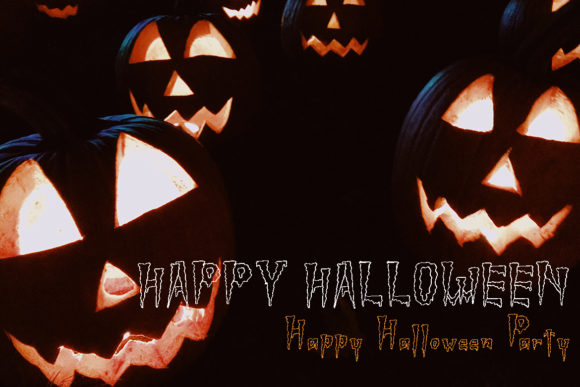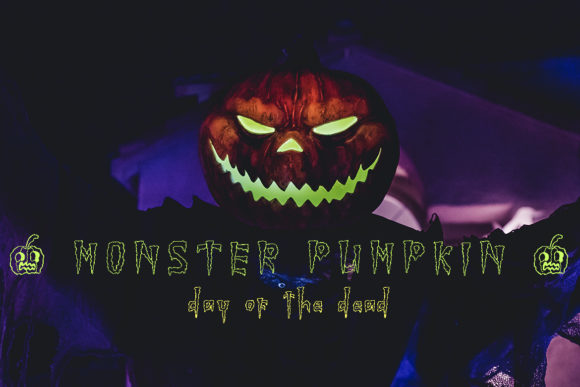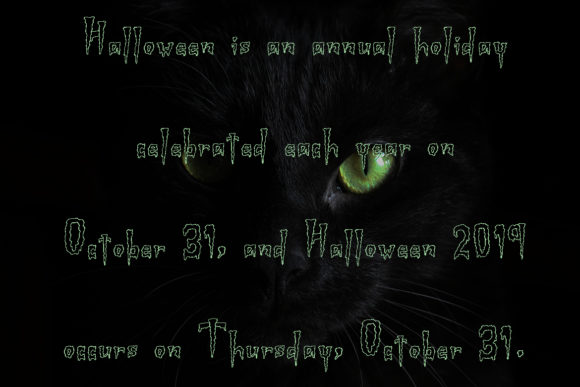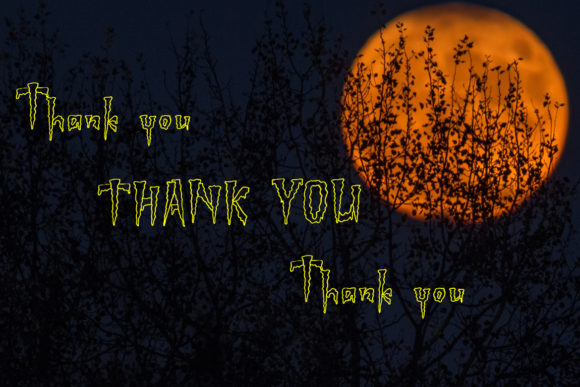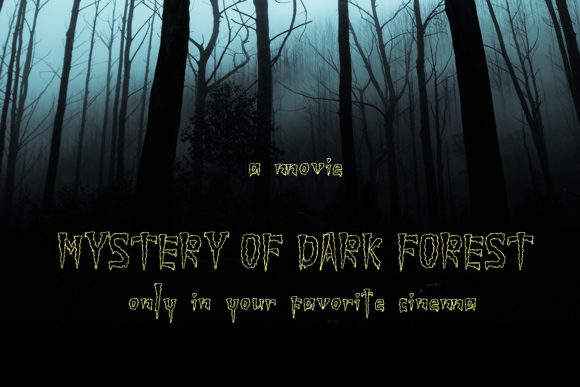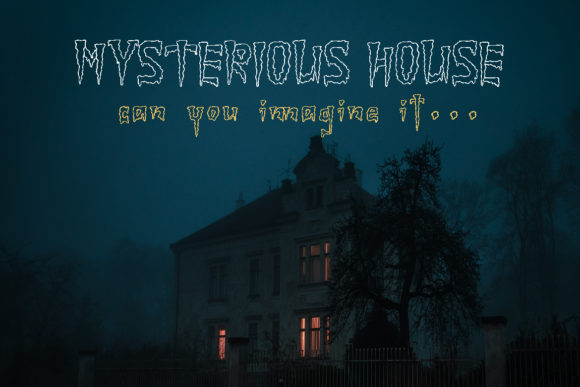
Introduction to Nightimare Pumpkin Font Font
Fonts play a crucial role in design, and the Nightimare Pumpkin Font font is a typeface that brings both character and versatility to any project. Whether you’re working on a branding project, a website, or a print design, the Nightimare Pumpkin Font font offers a unique style that can elevate your work.
Inspired by all things Halloween, Nightimare Pumpkin is a truly scary and rough decorative font thatβs perfect for any Horror-themed design.
Inspired by all things Halloween, Nightimare Pumpkin is a truly scary and rough decorative font thatβs perfect for any Horror-themed design!
Key Features of Nightimare Pumpkin Font Font
Why Choose Nightimare Pumpkin Font Font?
The Nightimare Pumpkin Font font is more than just a typeface β it’s a design tool that helps you communicate your message with style and clarity. Its unique character set and versatile design make it suitable for a wide range of applications, from elegant invitations to bold headlines.
With its carefully crafted letterforms and balanced proportions, the Nightimare Pumpkin Font font ensures readability and visual appeal across all mediums.
What makes Nightimare Pumpkin Font font special?
The Nightimare Pumpkin Font font stands out with its unique design, exceptional readability, and versatility across various design applications.